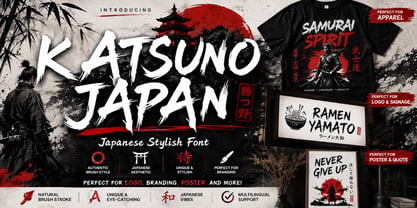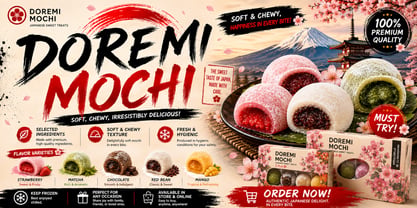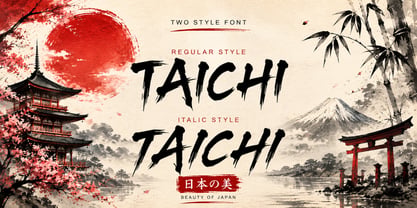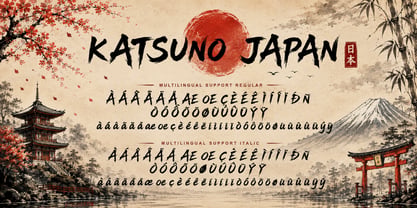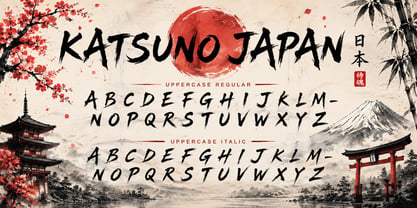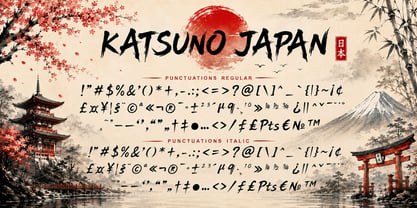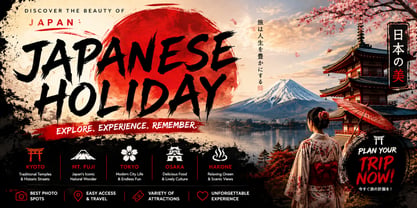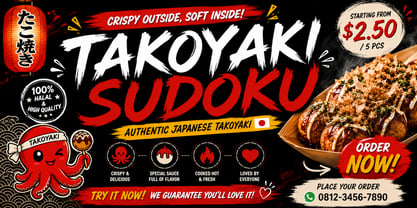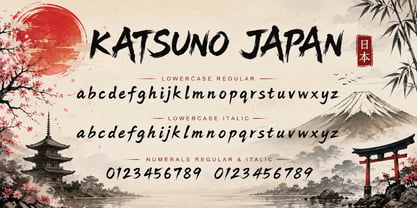
Katsuno Japan Italic
by Yoga Letter
The Katsuno Japan Italic Font Family was designed by Isroni Yoga Prasetya and published by Yoga Letter. Katsuno Japan Italic contains 2 styles and family package options. More about this family
Katsuno Japan showcases bold, dynamic strokes that exude an authentic handcrafted feel. Dilengkapi dengan huruf besar, huruf kecil, numerals, punctuiations dan multilingual support, this font is perfect for a variety of applications including logos, branding, posters, apparel, signage, and creative designs. As a distinctive display font, it infuses powerful Japanese-inspired character into every project. Ideal for adding an energetic, artistic touch to both modern and traditional designs, Katsuno Japan ensures that every word stands out with strength, style, and character.
Designers: Isroni Yoga Prasetya
Foundry: Yoga Letter
Katsuno Japan Italic